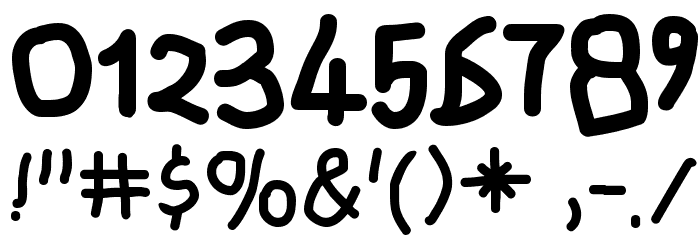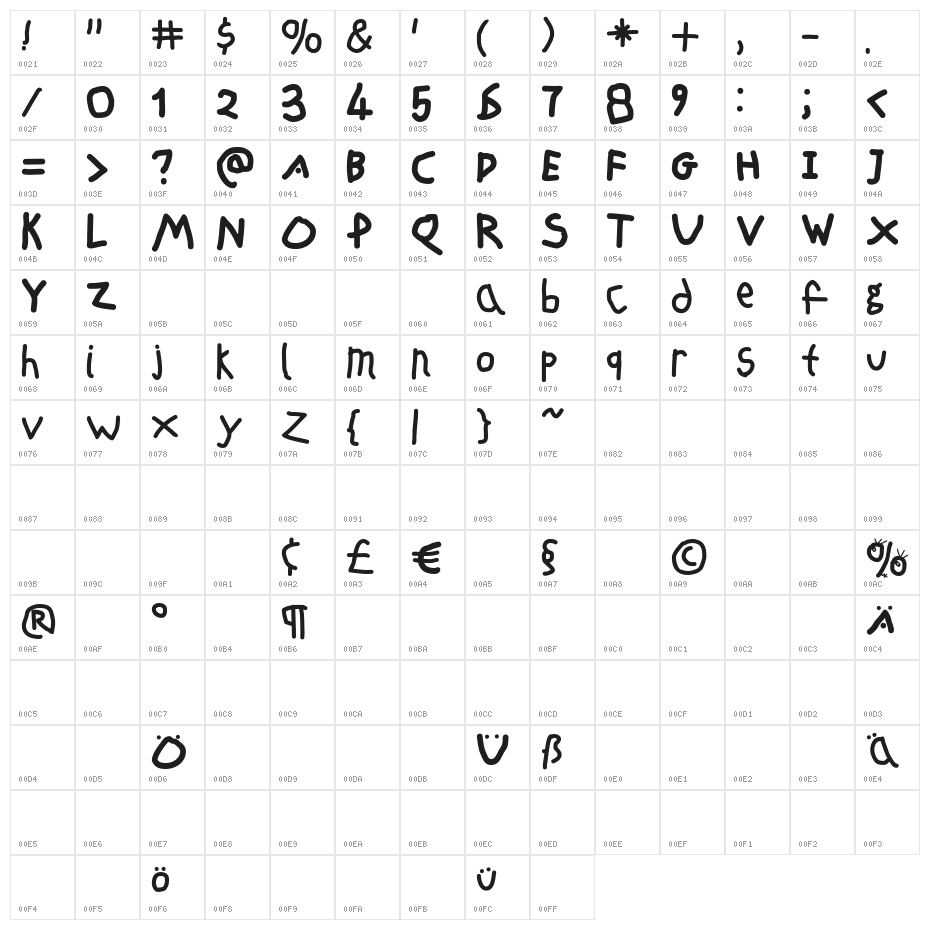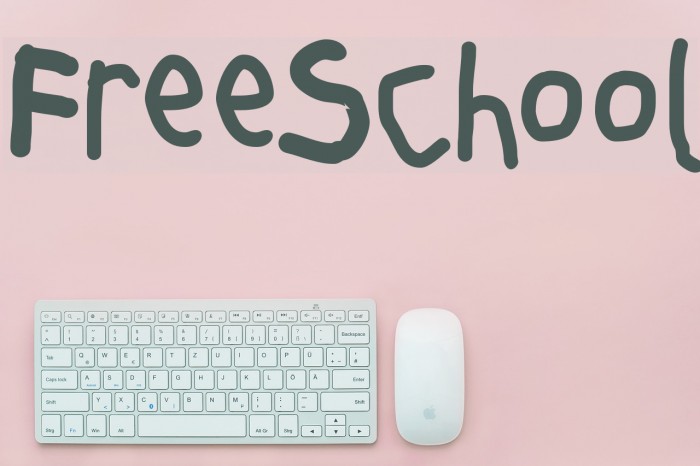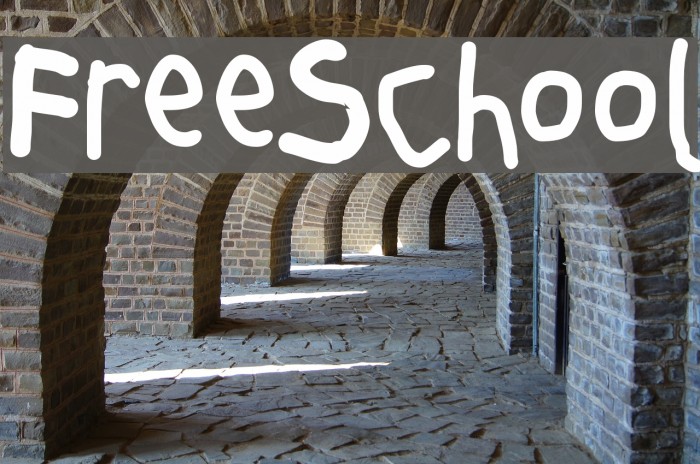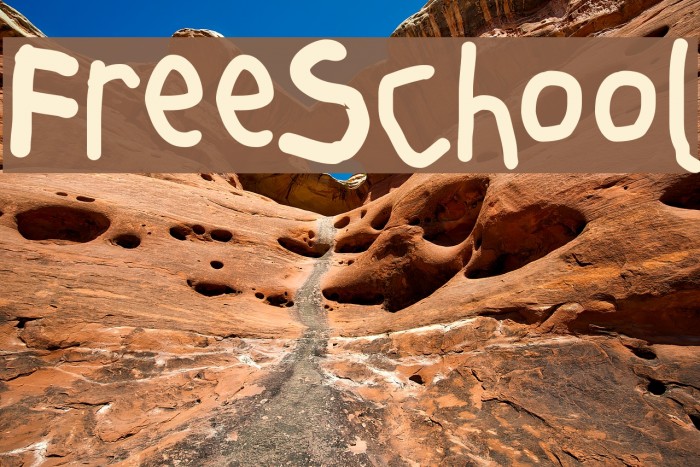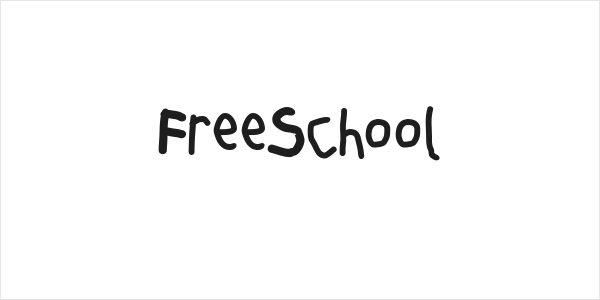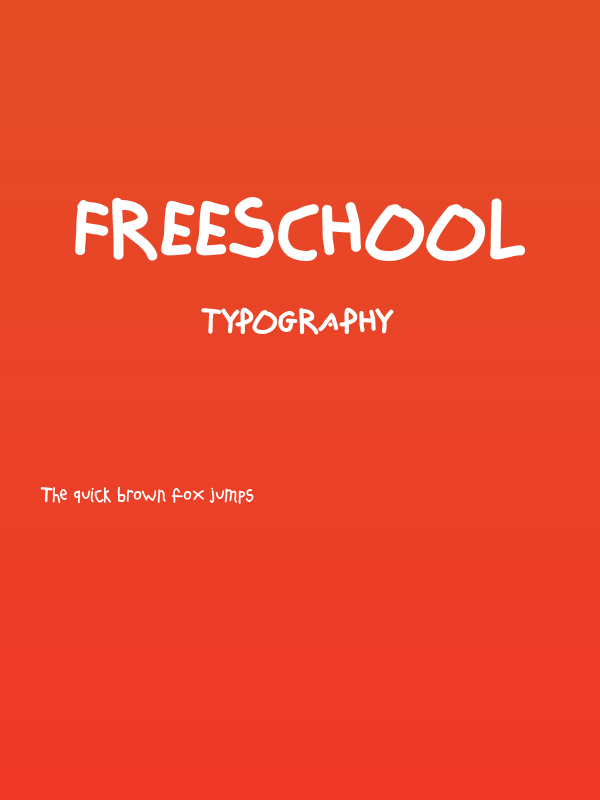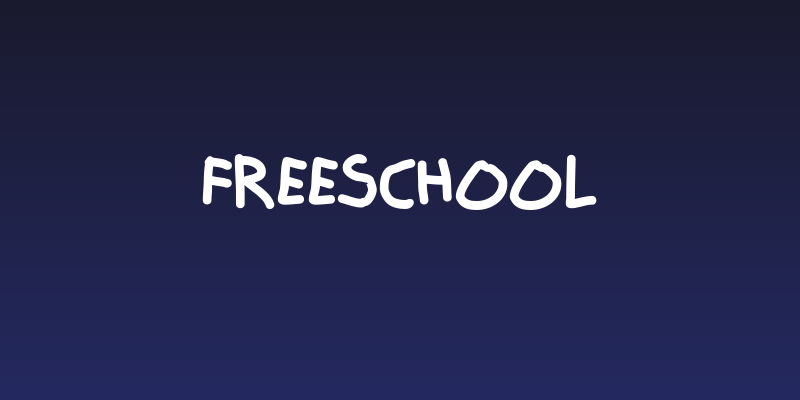
FreeSchool Font
FreeSchool Description
This playful and informal font features a handwritten style with a bold and slightly irregular appearance. The characters are rounded and have a whimsical feel, making them ideal for projects that require a casual and friendly tone. The uppercase and lowercase letters maintain a consistent style, with some variations in stroke thickness that add to the font's charm. The numbers and special characters are designed to match the overall aesthetic, ensuring a cohesive look across all text elements. This font is perfect for creative projects that aim to convey a sense of fun and approachability.
| Overall Style | Playful, Casual |
| Proposed Projects | Ideal for children's books, educational materials, playful branding, and casual invitations. |